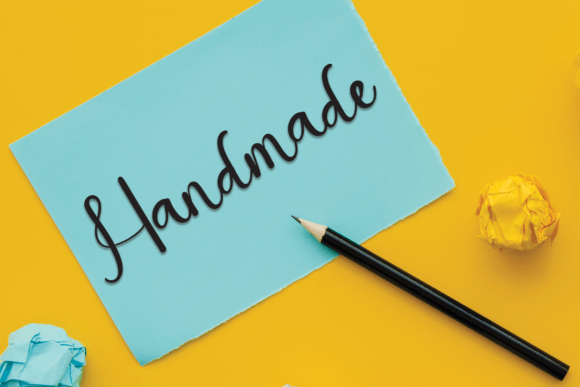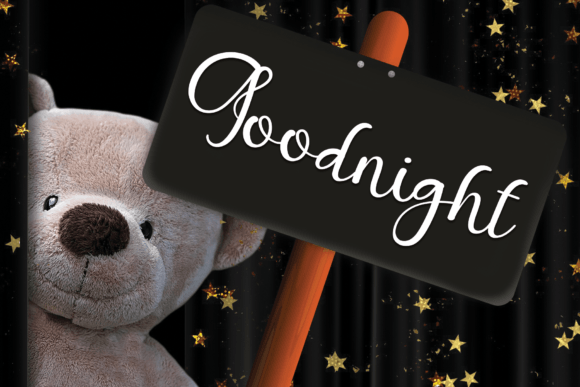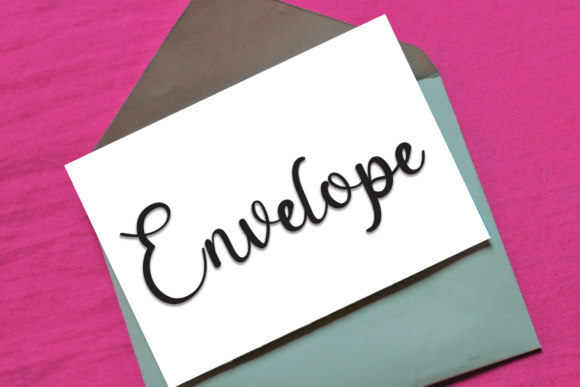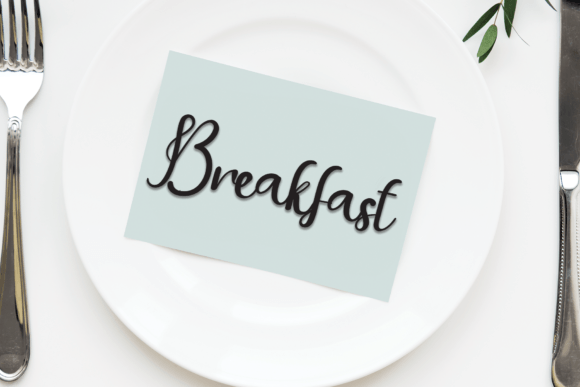
Baby Bear Font: The Sweet and Smooth Handwritten Font for Your Design Needs
Are you a designer or crafter looking for a font that can add a romantic and personal touch to your designs? Look no further than the Baby Bear Font! This sweet and smooth handwritten font is perfect for creating beautiful wedding invitations, cards, and other designs that require a touch of elegance and playfulness.
What is Baby Bear Font?
Baby Bear Font is a modern, handwritten font that is designed to be both cute and playful. Its smooth and flowing lines make it perfect for creating beautiful, eye-catching designs that are sure to capture the attention of your audience. Whether you’re designing a wedding invitation, a greeting card, or any other type of project, Baby Bear Font is the perfect choice.
Key Features of Baby Bear Font
- Sweet and Smooth Lines: Baby Bear Font features smooth and flowing lines that give it a sweet and elegant look.
- Cute and Playful: The font has a playful and cute feel to it, making it perfect for designs that require a touch of whimsy.
- Romantic and Personal: Baby Bear Font is ideal for designs that require a romantic and personal touch, such as wedding invitations and love letters.
- Versatile: The font is versatile and can be used for a wide range of design projects, from invitations and cards to posters and social media graphics.
Uses of Baby Bear Font
Baby Bear Font is a versatile font that can be used for a wide range of design projects. Here are some of the most popular uses of this beautiful font:
- Wedding Invitations: Baby Bear Font is perfect for creating beautiful and elegant wedding invitations that set the tone for the big day.
- Greeting Cards: The font is ideal for creating cute and playful greeting cards for birthdays, anniversaries, and other special occasions.
- Social Media Graphics: Baby Bear Font can be used to create eye-catching social media graphics that are sure to capture the attention of your audience.
- Posters and Flyers: The font can be used to create beautiful posters and flyers for events, promotions, and other marketing campaigns.
Why Choose Baby Bear Font?
There are many reasons why you should choose Baby Bear Font for your design needs. Here are a few:
- Unique and Creative: Baby Bear Font is a unique and creative font that will set your designs apart from the rest.
- Easy to Read: The font is easy to read, even at small sizes, making it perfect for designs that require a lot of text.
- Customizable: Baby Bear Font can be customized to fit your design needs, including changing the color, size, and style.
Tips for Using Baby Bear Font
Here are a few tips for using Baby Bear Font in your designs:
- Use it with Other Fonts: Baby Bear Font can be paired with other fonts to create a unique and interesting design.
- Experiment with Colors: The font looks great in a variety of colors, so don’t be afraid to experiment and find the perfect color for your design.
- Use it for Headings and Titles: Baby Bear Font is perfect for headings and titles, where its playful and cute feel can really shine.
In conclusion, Baby Bear Font is a sweet and smooth handwritten font that is perfect for designers and crafters looking to add a romantic and personal touch to their designs. With its cute and playful feel, versatile uses, and affordable price, Baby Bear Font is a great choice for any design project. So why wait? Download Baby Bear Font today and start creating beautiful designs that will capture the attention of your audience!